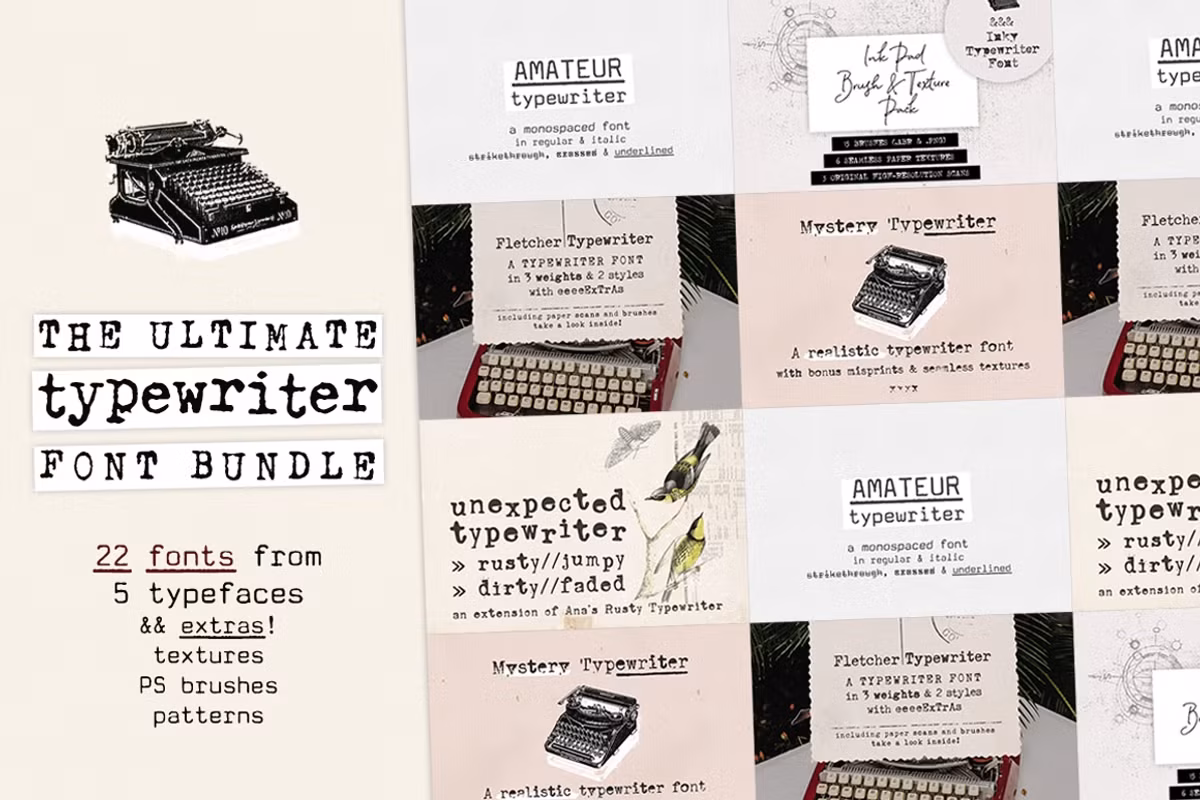
Typewriter Font Bundle Free Download is a versatile collection of typewriter-style fonts that bring vintage charm and a touch of nostalgia to your designs. Perfect for retro branding, invitations, posters, and personal projects, this bundle delivers a timeless, classic look with a modern twist.
With multiple variations and weights, Typewriter Font Bundle Free Download offers flexibility for both casual and professional designs. Whether you’re designing for a vintage brand, a literary project, or creating stylish prints, these fonts add authenticity and character. Try it out in your next creative endeavor to experience its unique charm—then upgrade to a commercial license when you're ready to launch your work to the world.